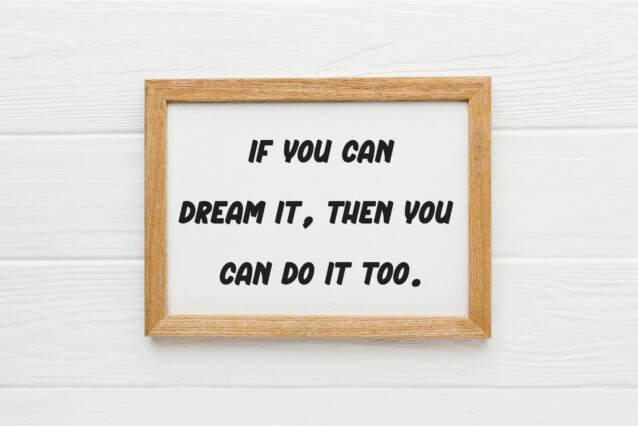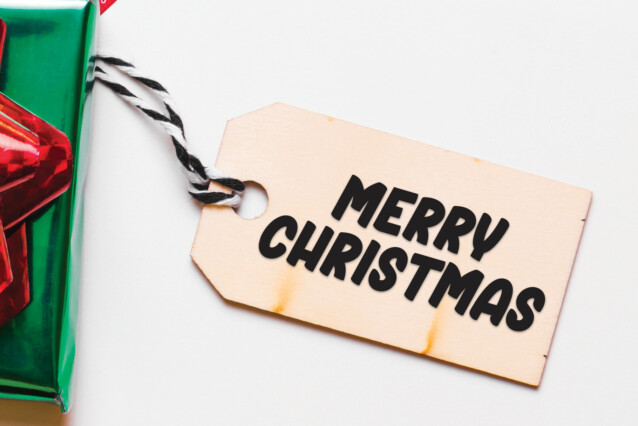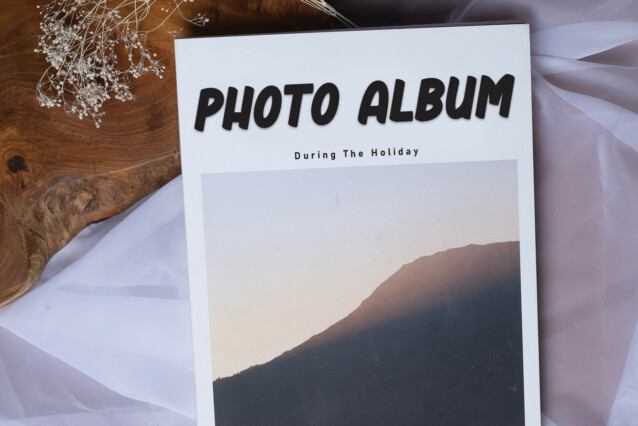
Monday Unicron Display Font
Monday Unicron Display Font is a natural and casual sans-serif font that exudes a relaxed and organic vibe. Its clean lines and unpretentious style make it perfect for wholesome branding, cozy invitations, and friendly social media graphics. Enhance your projects with the approachable charm of this delightful typeface.